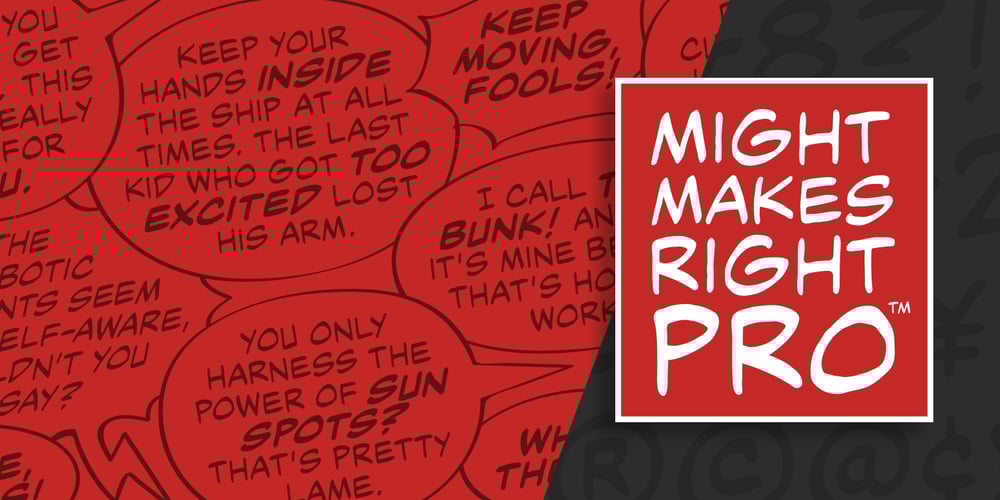
Might Makes Right Pro BB
Might Makes Right Pro BB font
Might Makes Right Pro BB Font Family was designed by Nate Piekos and published by Blambot. Might Makes Right Pro BB contains 4 styles and family package options. Might Makes Right Pro BB is an all-purpose comic book dialogue font inspired by Bronze Age comics. It’s designed to compliment a wide variety of art styles. The opentype version has autoligatures to swap out adjacent, identical letter pairs for a more organic look, and a wide variety of European characters are included. This Blambot classic comic book dialogue family has been updated with even more European characters, improved spacing and kerning, contextual alternate correction of errant serif-I, and a fourth weight, plain Bold.